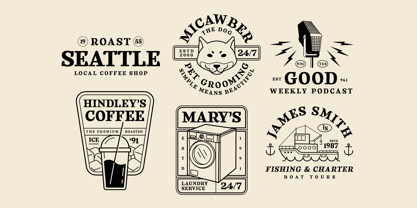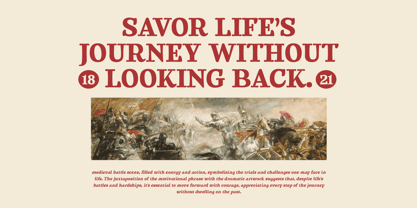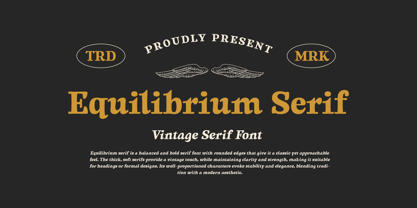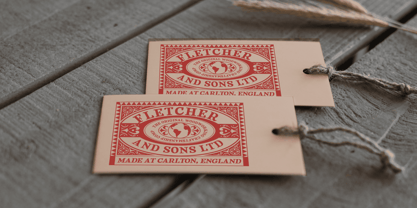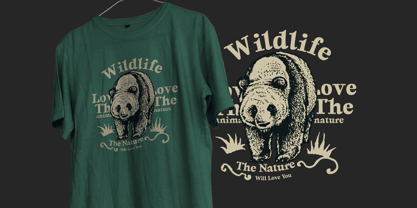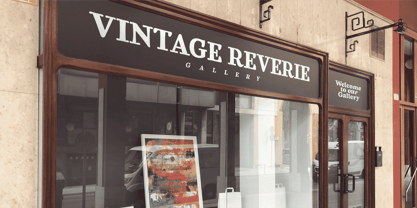
Equilibrium Serif
by Mans Greback
The Equilibrium Serif Font Family was designed by Måns Grebäck and published by Mans Greback. Equilibrium Serif contains 4 styles and family package options. More about this family
Equilibrium Serif strikes a harmonious balance between bold authority and soft elegance. Its classic serif forms are rooted in tradition, but the rounded edges and subtle softness give it a contemporary, approachable feel. Each letterform is robust yet fluid, exuding a sense of calm strength.
The font’s neo-classic design evokes timelessness, while the glow of its smooth curves adds a warm, inviting touch. Equilibrium Serif is versatile, lending itself to both formal and modern contexts, making it perfect for projects that require a refined yet understated charm.
The font is built with advanced OpenType functionality and guaranteed top-notch quality, containing stylistic and contextual alternates, ligatures, and more automatic and manual features; all to give you full control and customizability.
It has extensive lingual support, covering all Latin-based languages, from North Europa to South Africa, from America to South-East Asia. It contains all characters and symbols you'll ever need, including all punctuation and numbers.
Designed by Mans Greback, Equilibrium Serif reflects his commitment to blending classic design principles with modern aesthetics, creating a font that feels both timeless and fresh.